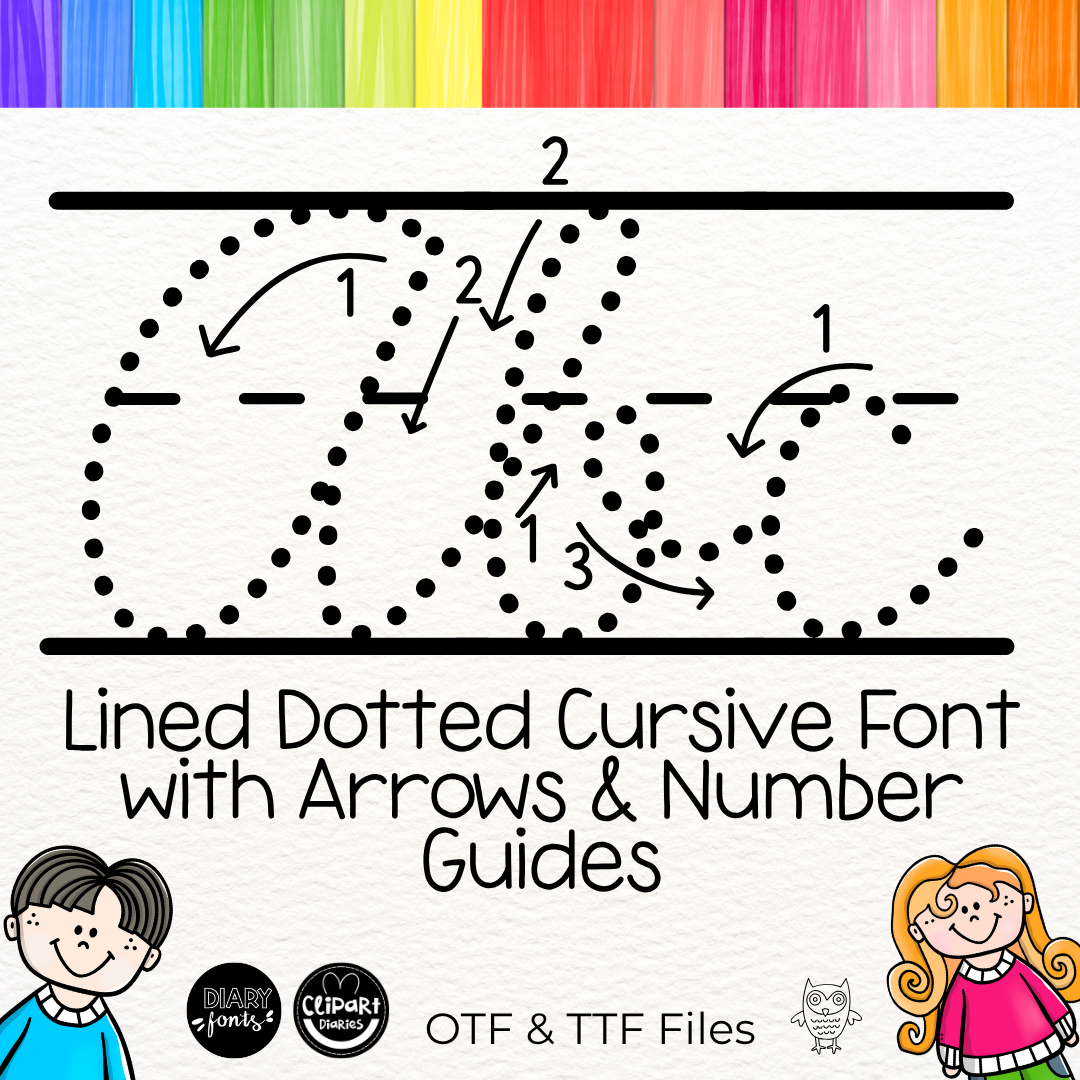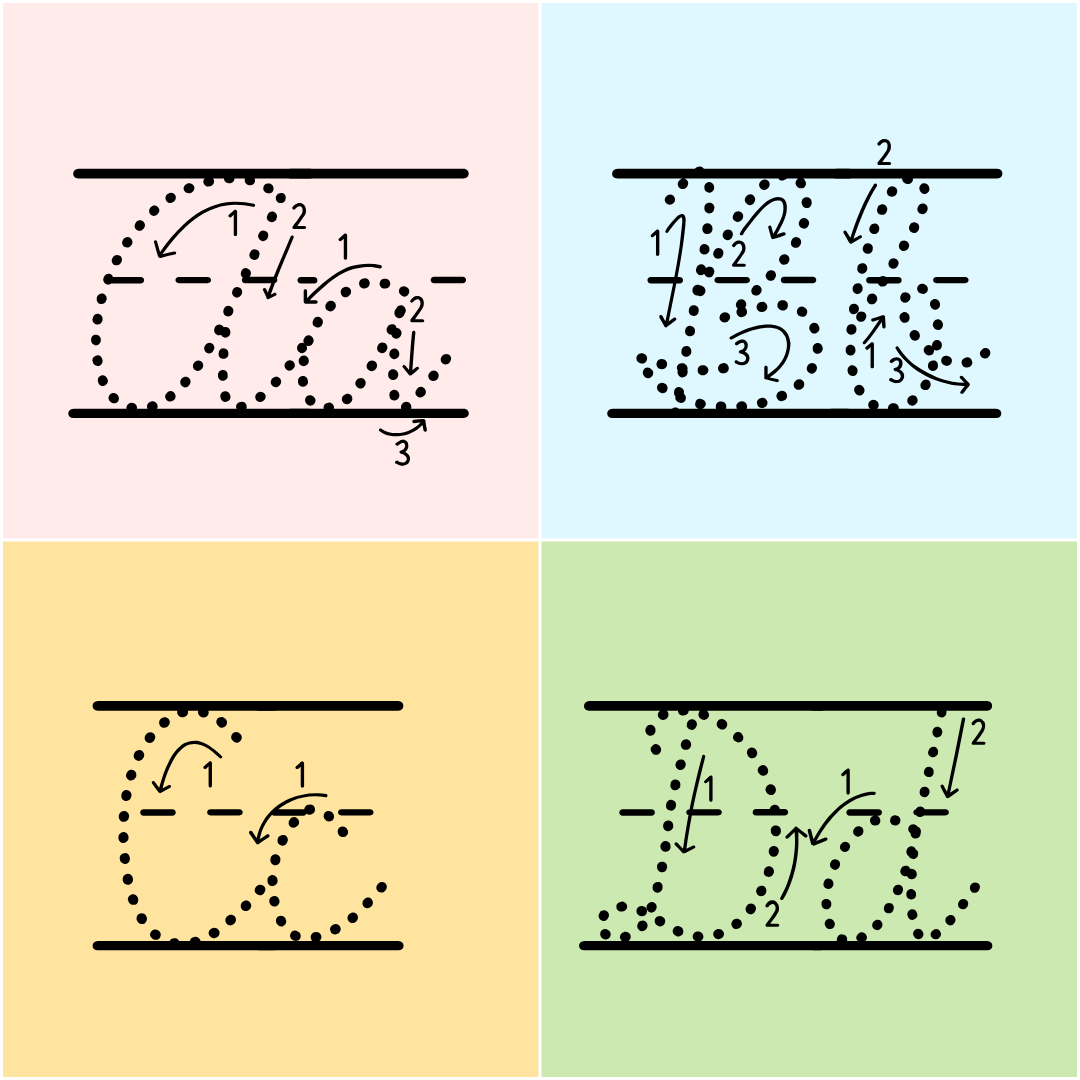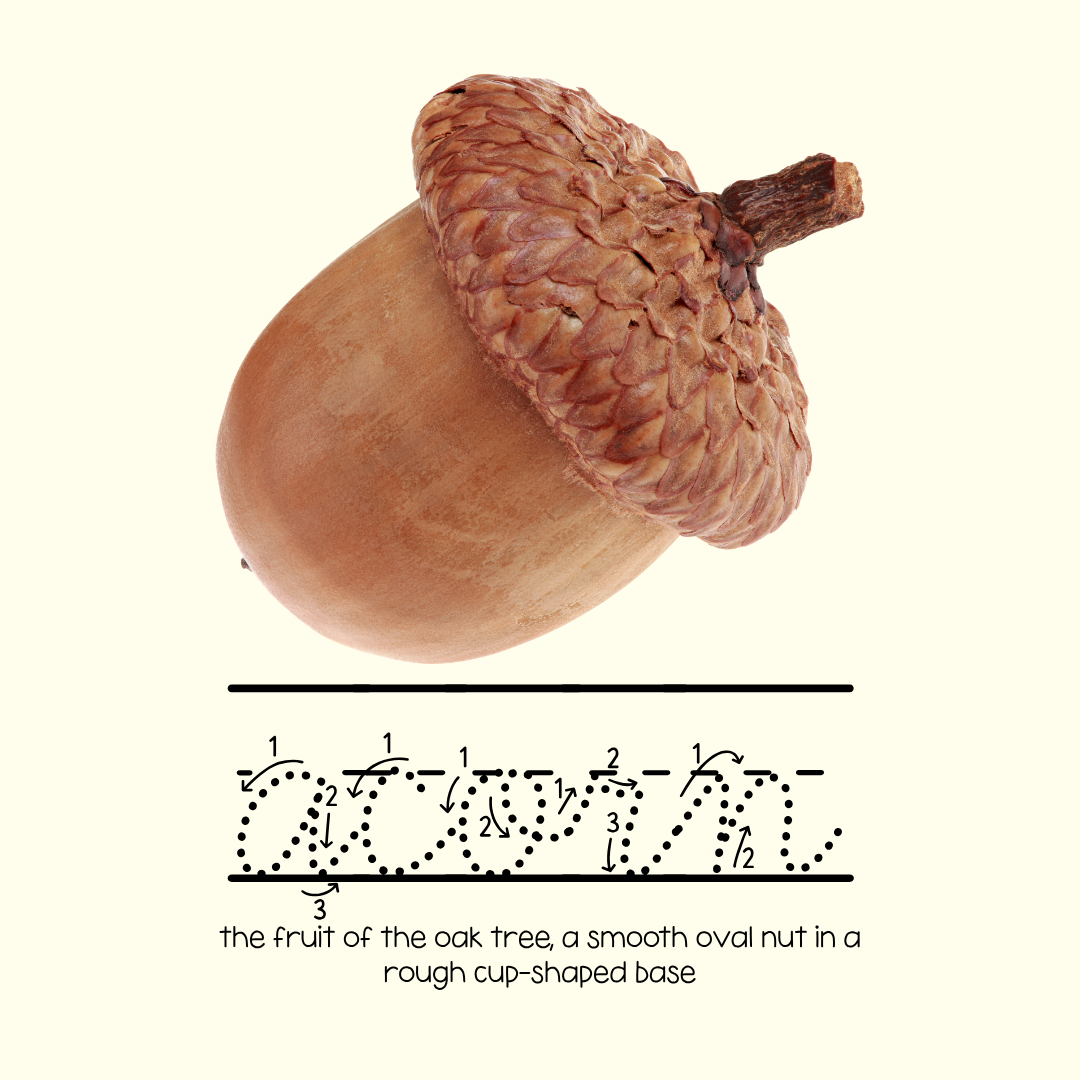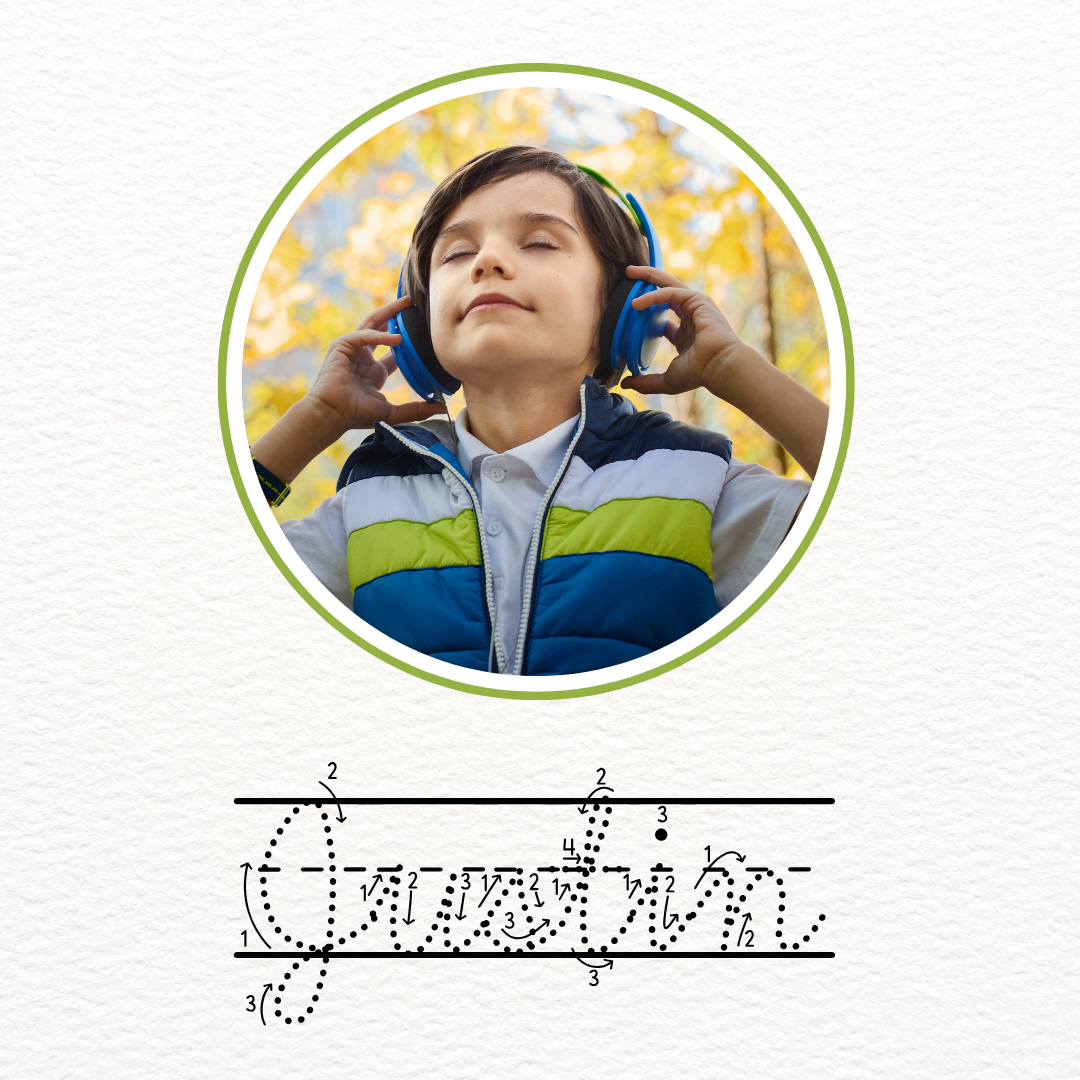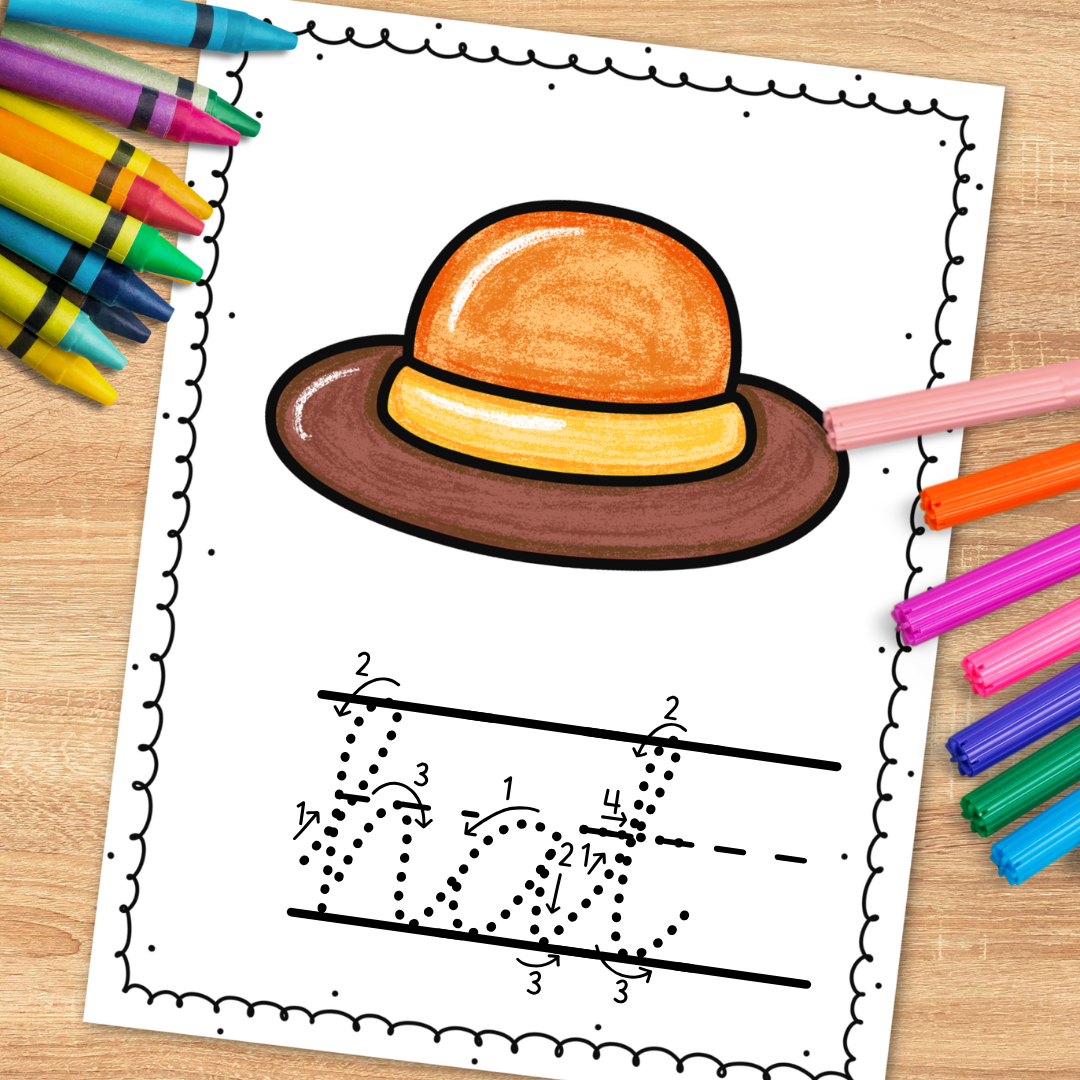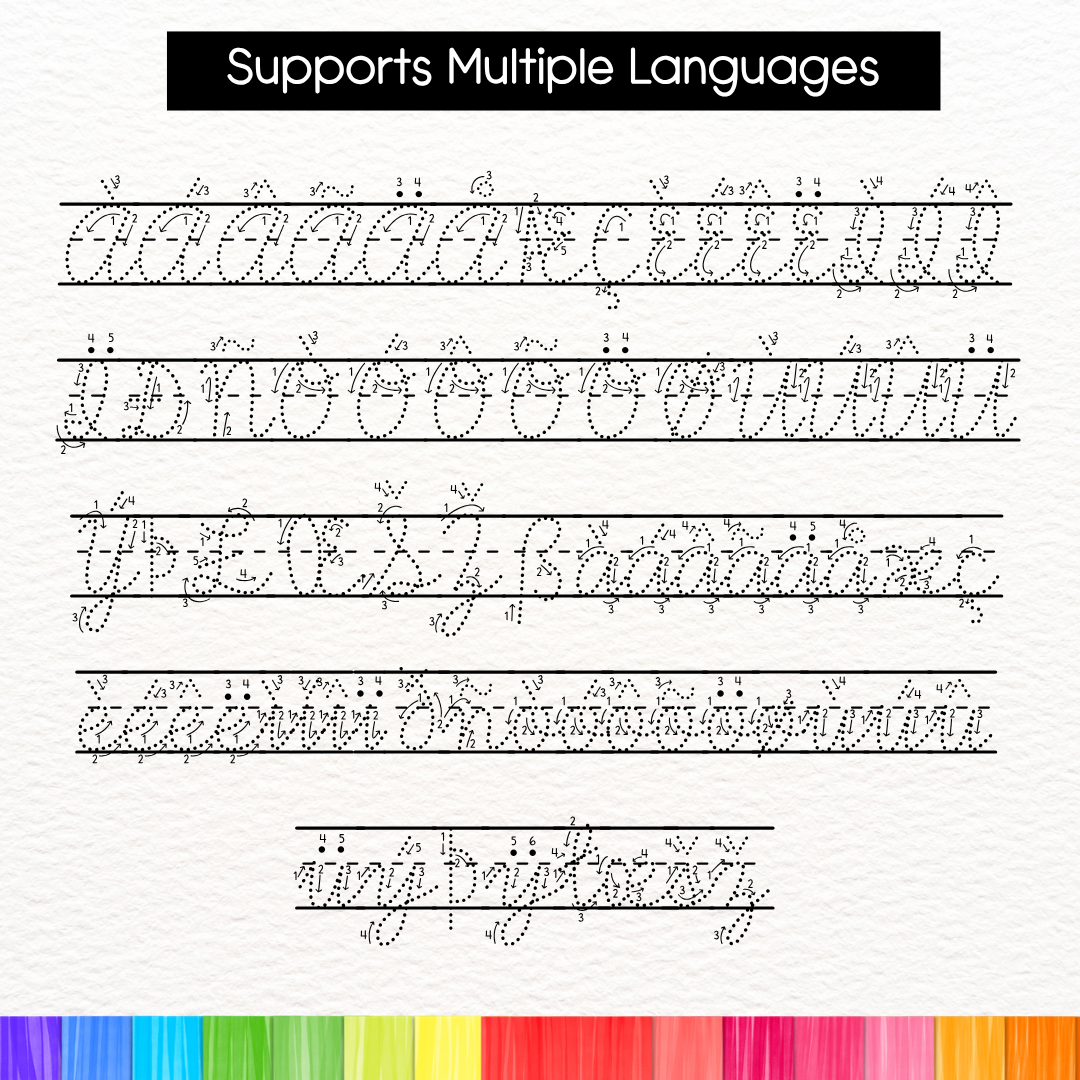
Cursive Dotted Lined Font with Arrow and Number Guides for Handwriting Practice or Tracing Activities – Personal and Commercial Use – Diary Cursive Dots 6
This lined dotted cursive handwriting font has dotted letters with arrows and number guides to help students practice writing cursive letters. You can use this cursive tracing font to create handwriting worksheets, tracing activities, alphabet posters, classroom décor, and other resources. The font is suitable for both personal and commercial projects.
This font also supports multiple accents and languages.